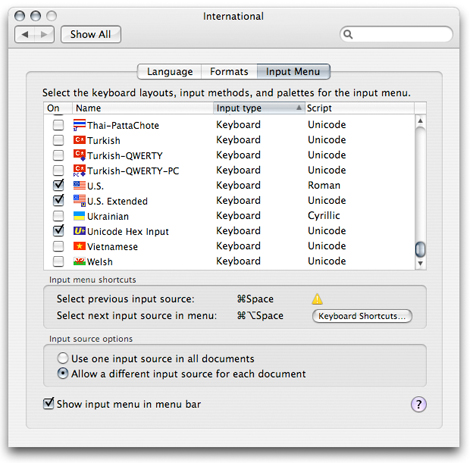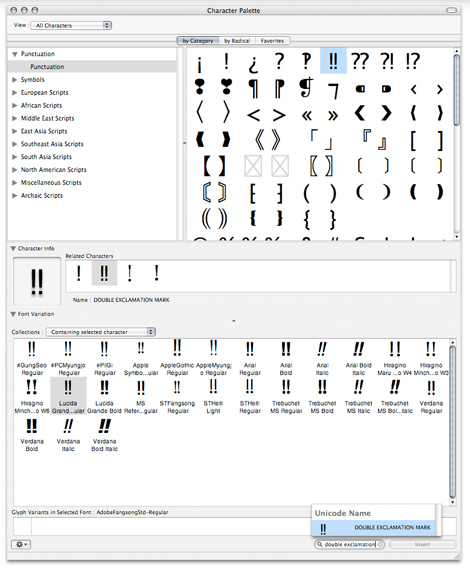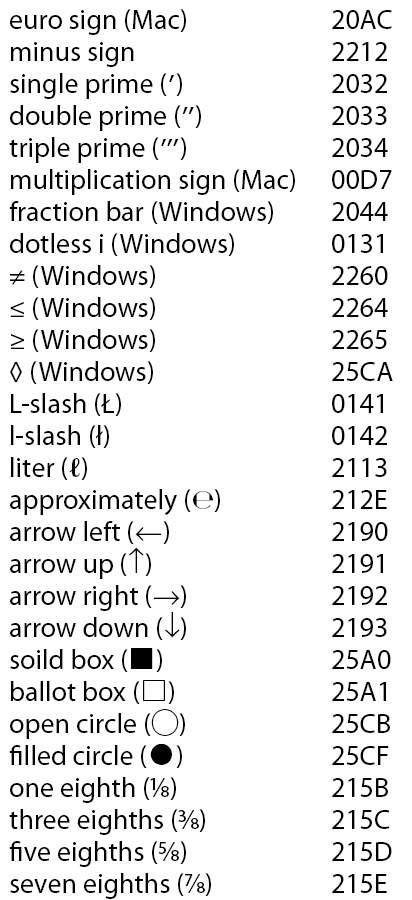
A Question of Character: Finding What You Need in Your Fonts, Part 2
In the previous installment of this column, I talked about the first generation of scalable, digital desktop fonts, the so-called single-byte fonts that contained only a couple hundred characters or so. This time we dive into the deep end of the pool: double-byte fonts, big character sets, and awkward font navigation tools. Our unlikely life preserver is Unicode, an international standard that applies a unique identification number to every character and ideogram in all the world’s languages. This provides a universal mechanism for all computers and applications to communicate with each other.
In this column, I’ll address just one aspect of the revolution: how Unicode affects the fonts you use and your ability to find the characters you need.
Characters and Glyphs
OpenType and TrueType fonts both use Unicode. At last count, the Unicode standard comprised more than 100,000 unique I.D. numbers. It’s possible to set type in most of the world’s major languages using a single, huge font. Because international operating systems (Windows and the Mac OS) use Unicode as well, cross-platform text communication is seamless.
OpenType and TrueType fonts can contain about 65,000 characters, although most are much smaller. But no matter how many characters a font contains, finding a way to access them all efficiently using a keyboard is a challenge.
Complicating the picture is that some characters have several forms. A capital T, for example, can have multiple appearances, such as the following, which are from the Adobe Arno Pro family. They range through roman, italic, small cap, display, swash, and bold.
Each of the T’s above is represented by a unique-looking glyph, but for font-encoding purposes they represent the same character, so they have the same Unicode number. If I send you an electronic file that contains a swash T, even if you don’t have a font with that glyph, at least you’ll see a T that you can read properly.
The Language of Unicode
This next part is hard for my math-challenged brain, so let’s get it over with quickly. Unicode characters are numbered using a base-16 system called hexadecimal, which uses both numerals and letters to express numeric values more compactly. In hexadecimal, our familiar numbers 0 through 15 look like this:
0 1 2 3 4 5 6 7 8 9 A B C D E F
In hexadecimal, good old number 16 looks like this:
10
Yes, this is the stuff of brain cramps. But since the assignment of numbers to characters within a font is arbitrary in any font format, it doesn’t matter whether you have to remember that the number for a division sign (÷) is 247 or its hexadecimal equivalent 00F7. When you get past character number 255 you have to reckon with hexadecimal notation. By convention, Unicode numbers are always expressed with four digits, even if the first ones are zeroes.
Escape from Exposition: Let’s Get to Work
For everyday work, the Mac continues to rely on its original character-access system, which uses keystroke combinations involving the Option and Shift keys to set characters with I.D. numbers 255 and below. Windows continues to use its Alt-I.D.-number typing scheme. Neither of these strategies addresses Unicode numbers. Likewise, neither allows you access to those “blocked” characters in even the simplest Type 1 font.
The original Mac and Windows character-access techniques don’t allow you to get at all of the characters in even a small, single-byte font. Some characters are available only on one platform or the other, as shown below.
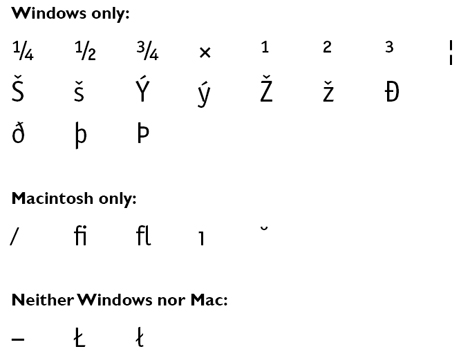
To get at those blocked characters or those with I.D. numbers higher than 255 (or the Unicode equivalent, 00FF), the action recommended by most Help systems is to use Windows Character Map, Mac OS’s Character Palette, or glyph palettes in programs such as QuarkXPress or Adobe InDesign. Here you have to browse visually, scrolling through hundreds of characters to find the one you’re after.
It’s a tedious method, though you can learn, for example, that the Unicode number for a minus sign is 2212. (You can also go to www.unicode.org for a searchable list.) But what can you do with this knowledge? Windows has the better idea here.
The Windows Approach
Windows and Windows applications use an approach similar to its old Alt-I.D. access scheme. To set a character by Unicode number, you type its four-digit Unicode I.D. and then type Alt-x. The I.D. number is converted into the character you’re after. Although Unicode numbers are always shown with digits and capital letters, you can usually use lowercase letters. (In fact, if you have the Caps Lock key engaged, the technique won’t work.) You can type the numbers from wherever you want, not only from the numeric keypad.
An invaluable tool is Character Map. In Windows XP, it’s found in the Start menu, under All Programs. In Vista, it’s buried inside the All Programs/Accessories/System Tools folder. Add it to your Quick Launch toolbar so it’s easily accessible.
Windows Character Map is an indispensable tool for plumbing the depths of your fonts’ character sets.